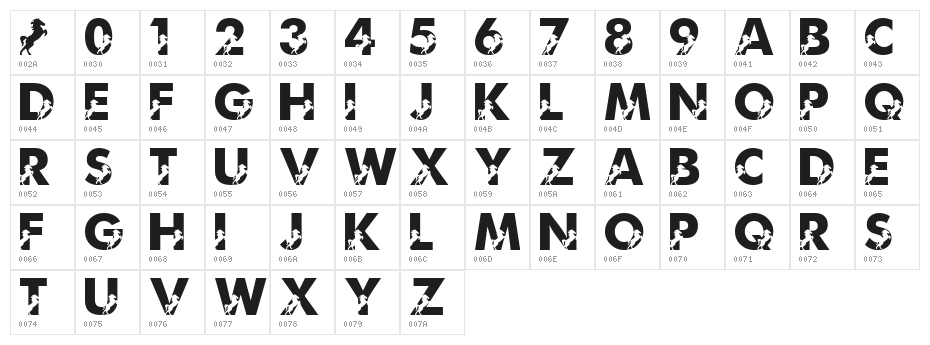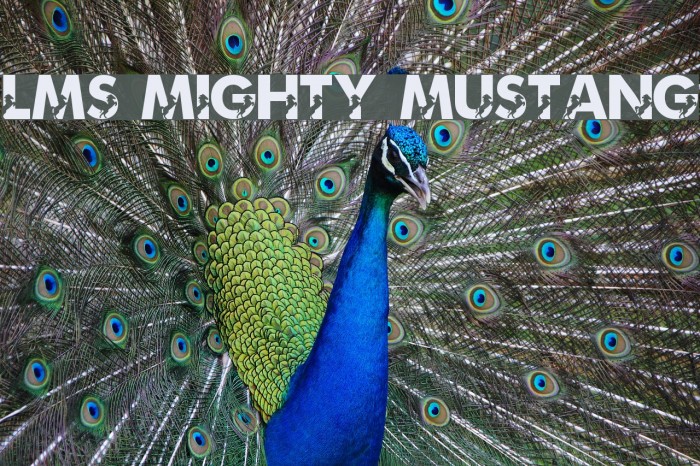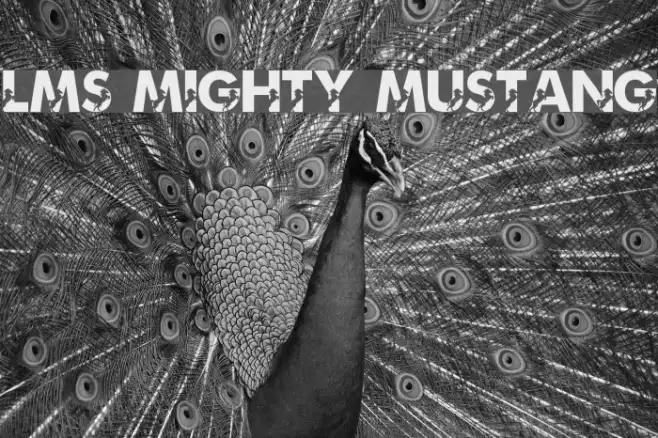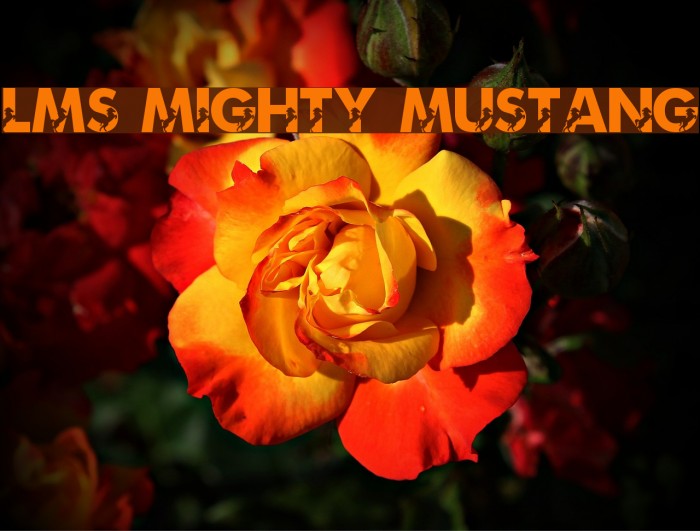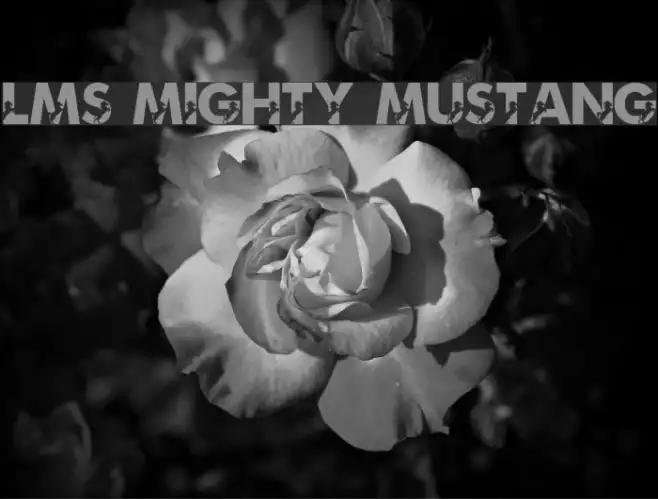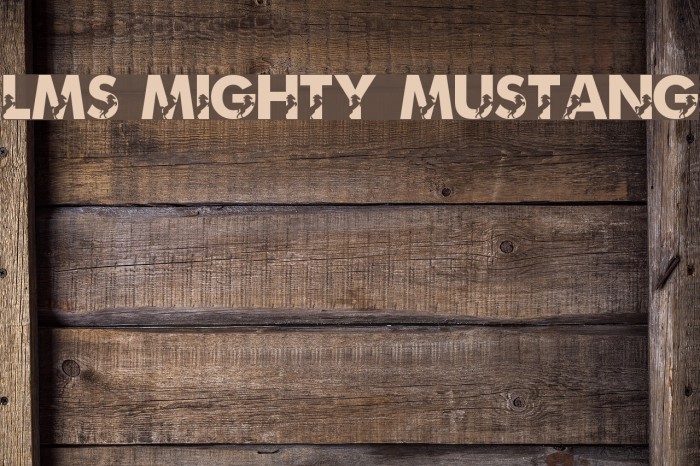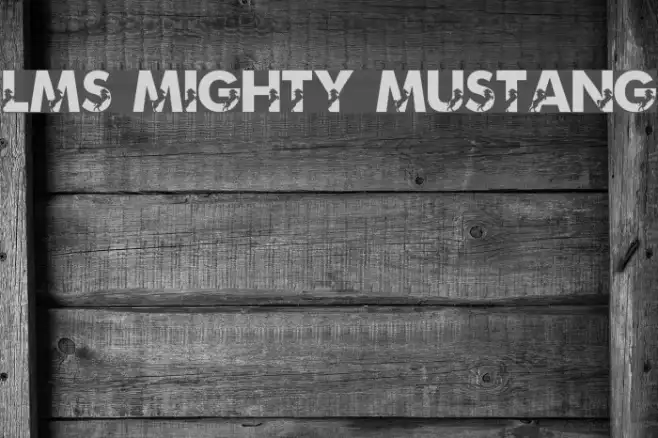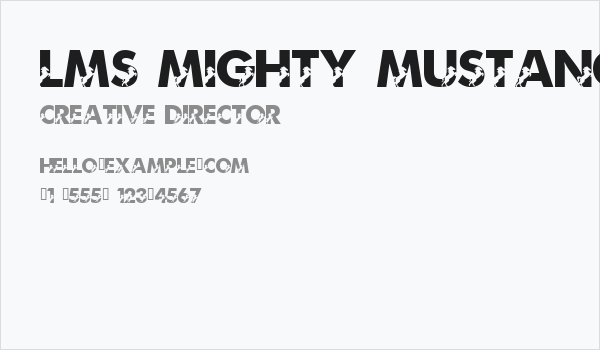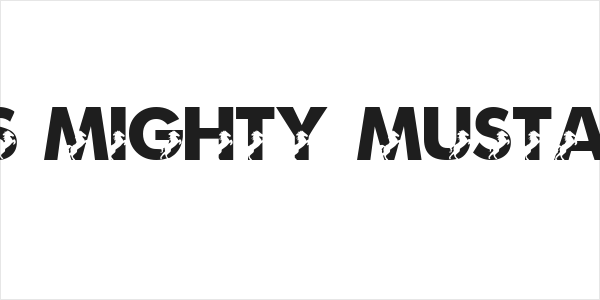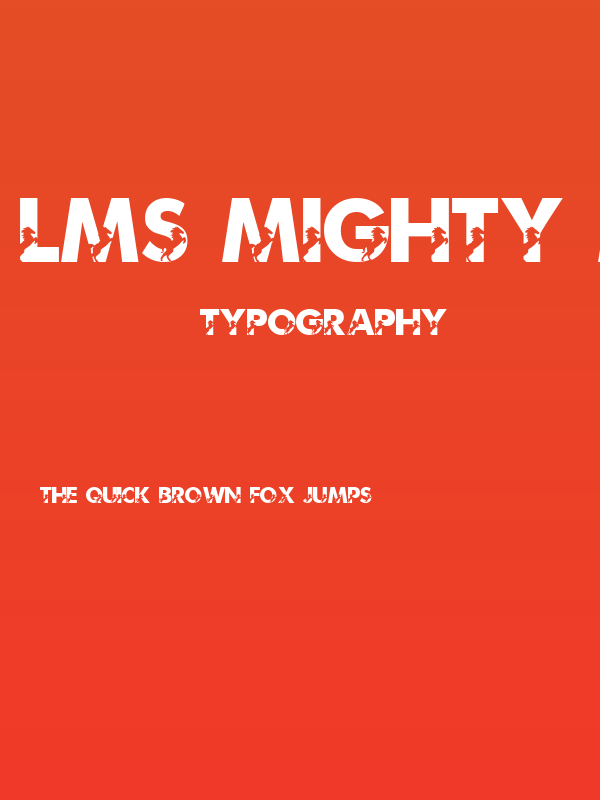
LMS Mighty Mustang Font
LMS Mighty Mustang Description
This bold and dynamic font features a unique design where each character is integrated with a silhouette of a galloping horse. The letters are uppercase and have a strong, impactful presence, making them ideal for attention-grabbing headlines or logos. The horse motif adds a sense of movement and energy, creating a visually striking effect. The font's design is consistent across all characters, maintaining a cohesive look that is both decorative and thematic. The numbers follow the same style, ensuring uniformity throughout any text or design project.
| Proposed Projects | Ideal for sports team branding, equestrian event promotions, or any project needing a bold, thematic design. |